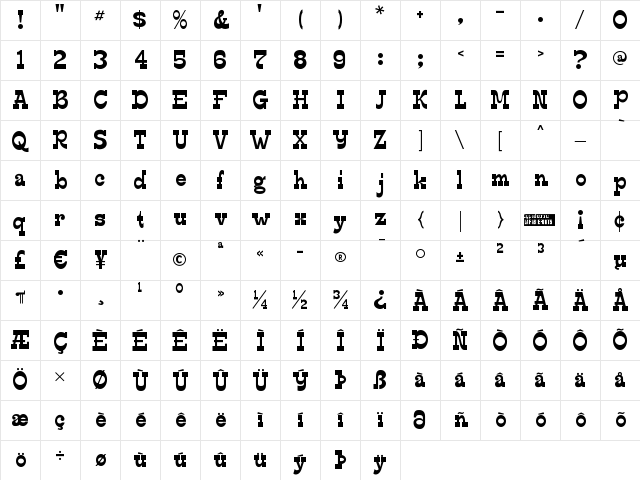
Edmunds Regular Free Font
Edmunds Regular
Edmunds Family
Complete Edmunds Regular glyph index. Displaying only characters natively supported by Edmunds Regular font.
Design Context for Edmunds
Edmunds is a composed and adaptable typeface that performs quietly and consistently across a wide range of design contexts.